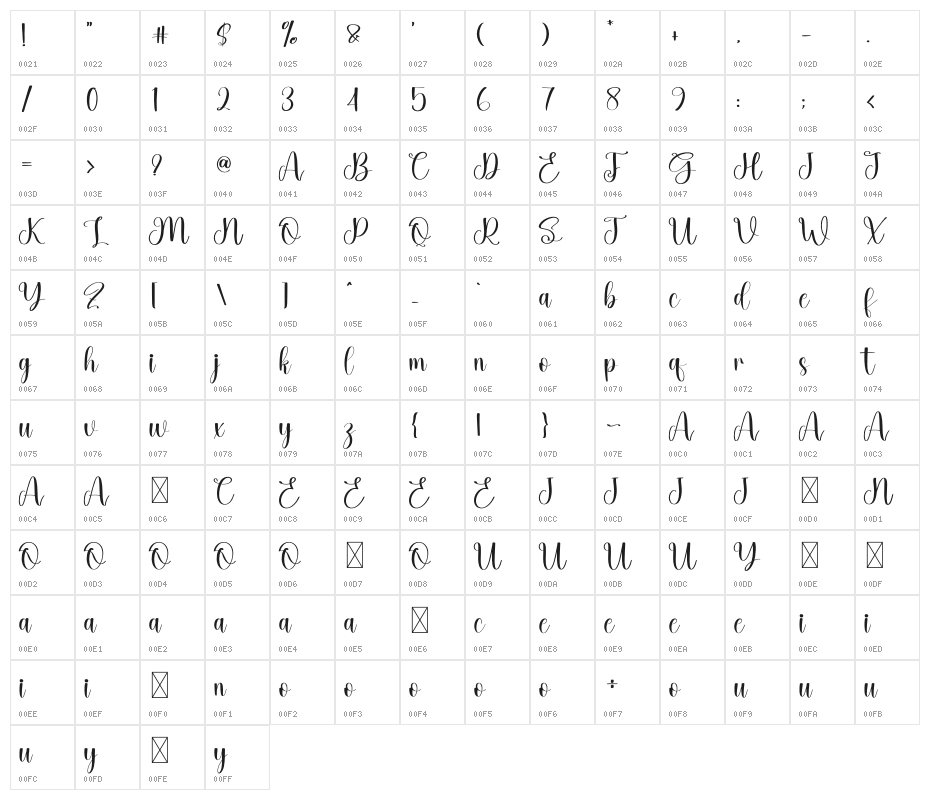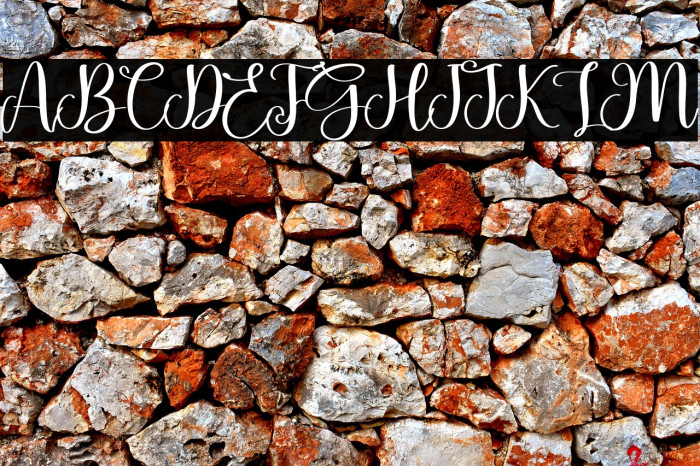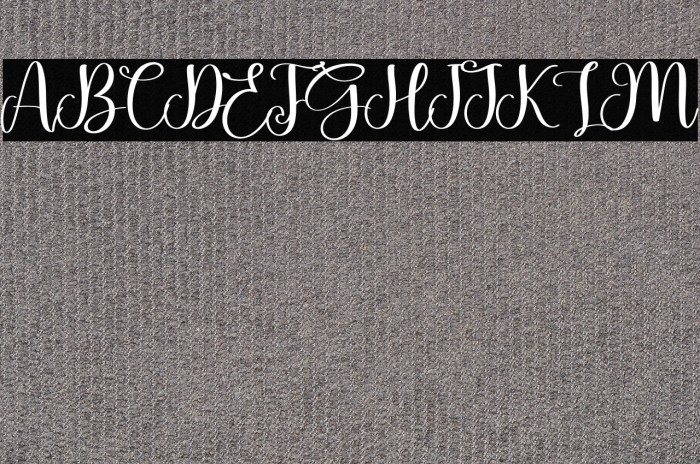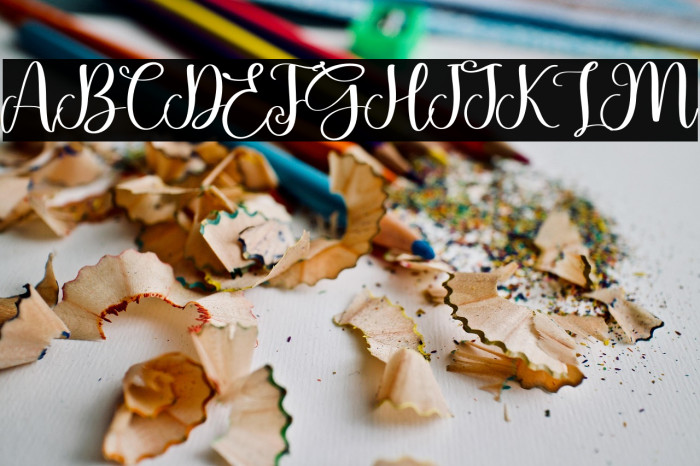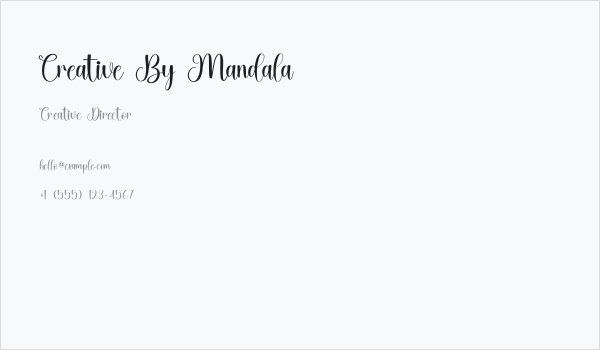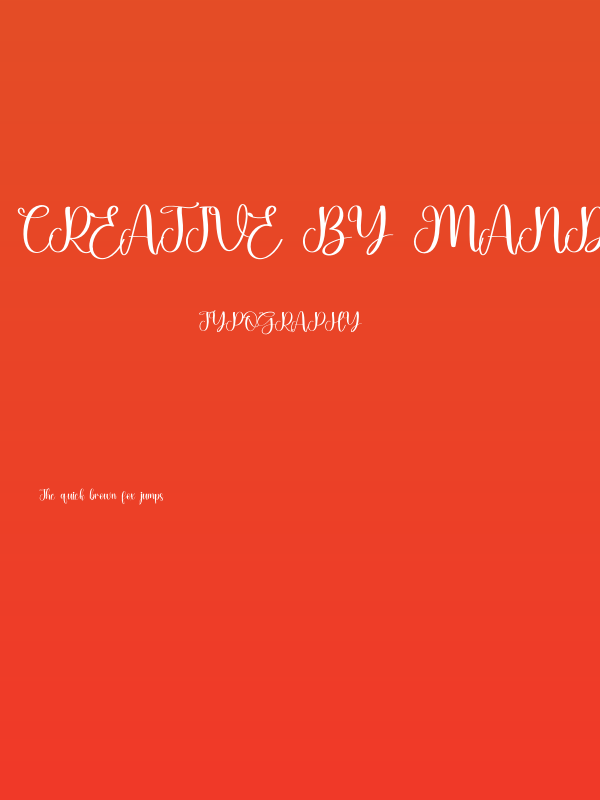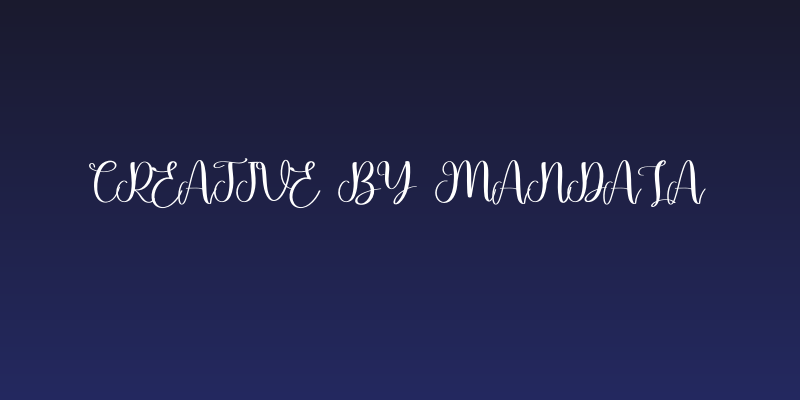
Creative By Mandala Font
Creative By Mandala Description
This font features an elegant and flowing script style with a modern twist. The uppercase letters are characterized by their intricate loops and swirls, giving them a decorative flair. The lowercase letters maintain a consistent flow, with some characters extending below the baseline, adding to the font's graceful appearance. The numerals are bold and slightly condensed, complementing the overall style. Special characters are designed with the same attention to detail, ensuring a cohesive look across all glyphs. This font's artistic and sophisticated design makes it suitable for a variety of creative applications.